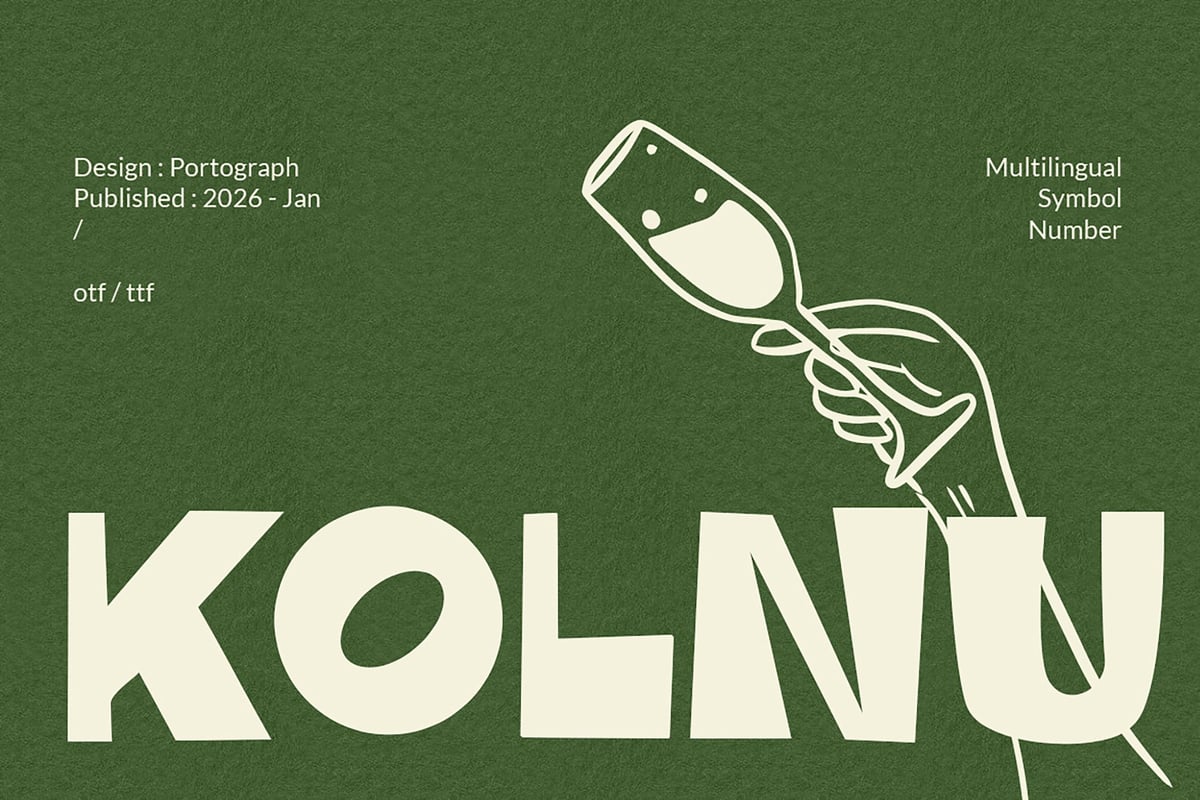
Kolnu - Food Font
Bring warmth and authenticity to your designs with this handcrafted display typeface featuring bold, organic character. Kolnu draws inspiration from coffee culture, artisan packaging, and modern vintage branding to deliver a friendly and inviting feel to your creative projects. This carefully crafted font combines the charm of handmade design with the versatility needed for professional branding applications. In Package: OTF TTF WOFF Feature: Web Font Ton of glyphs Ligature & Alternate Works on ...